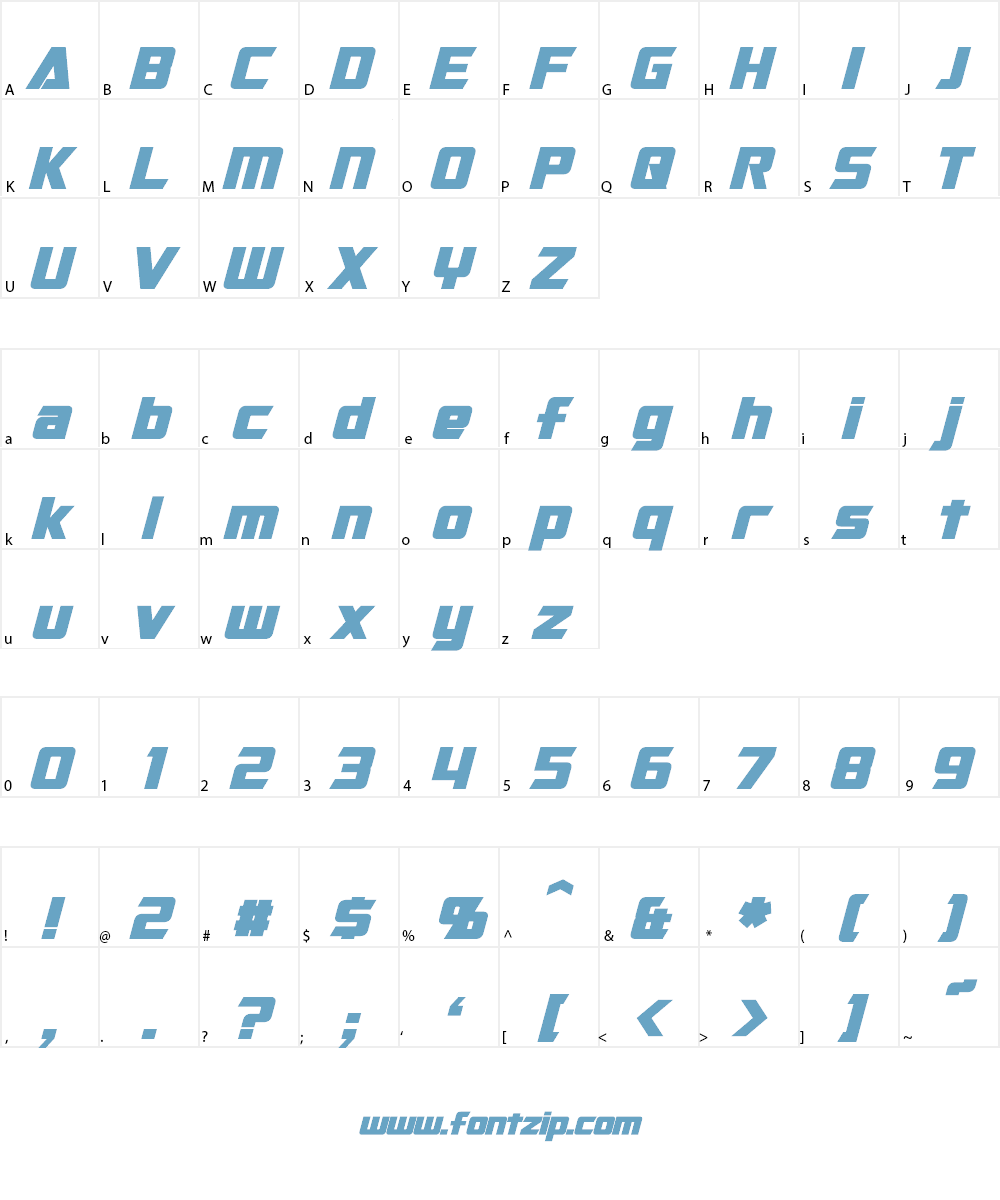
Cybertron
This bold typeface is based on the original logo of Hasbro’s legendary “Transformers” toyline. The basic font includes all alphanumerics, extended punctuation, Euro, and comes in regular, bold, italic, and bold-italic weights. Also includes ‘moviecaps’ version which is modified to resemble the logo of the first three Michael Bay films. Lastly includes condensed versions of all of the above to be more suitable to print. 16 variations in all!